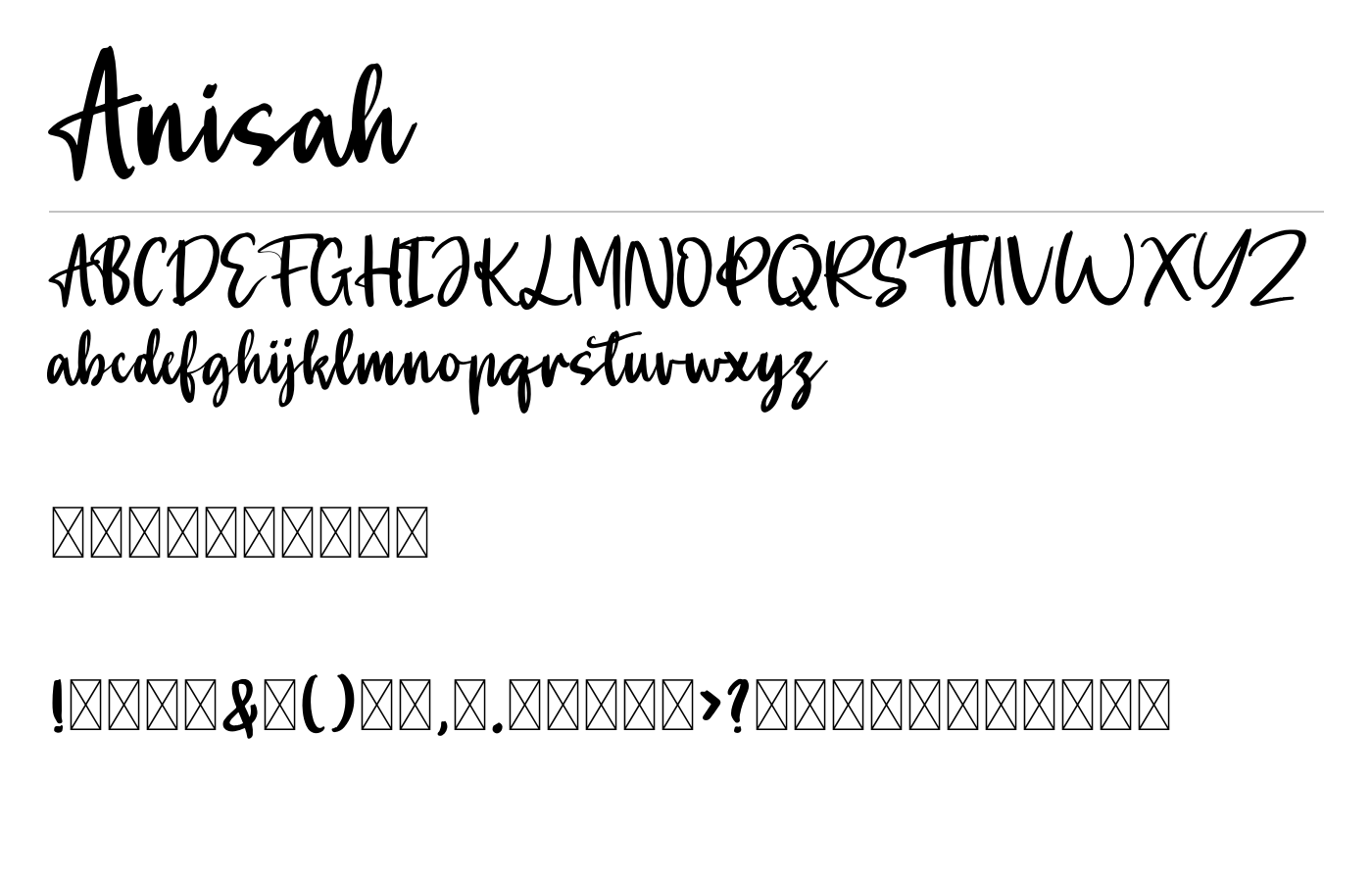
Anisah is a lively and informal handwritten script font that feels fresh and personal with its bold, irregular strokes and playful curves. Its casual yet stylish character makes it ideal for creative projects, branding, and invitations where a warm, approachable vibe is desired. This font works well in headlines and logos, adding a friendly and expressive touch that stands out without sacrificing readability.
Anisah Font
About Anisah Font